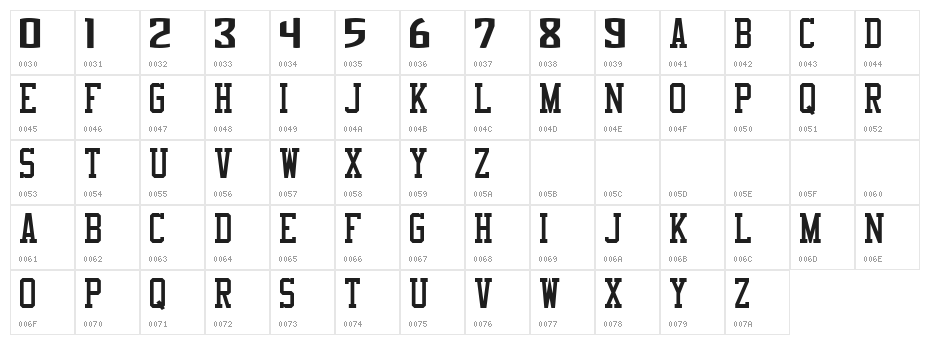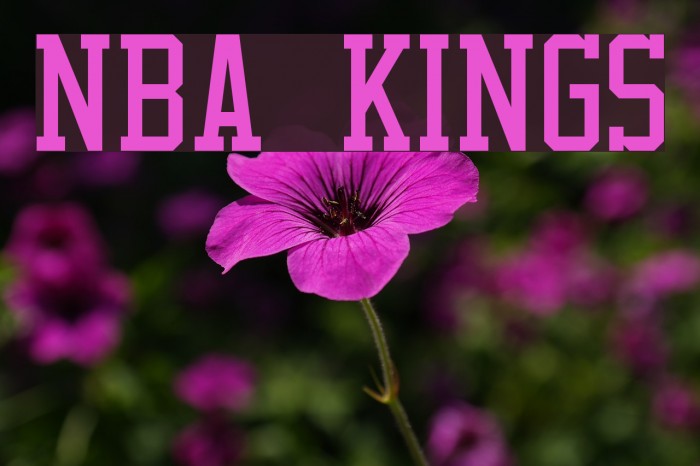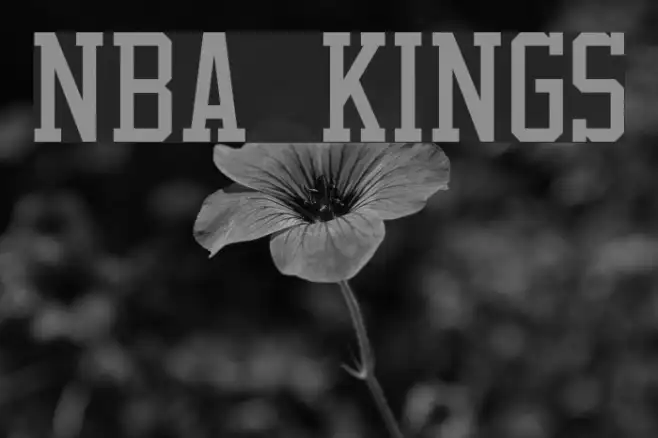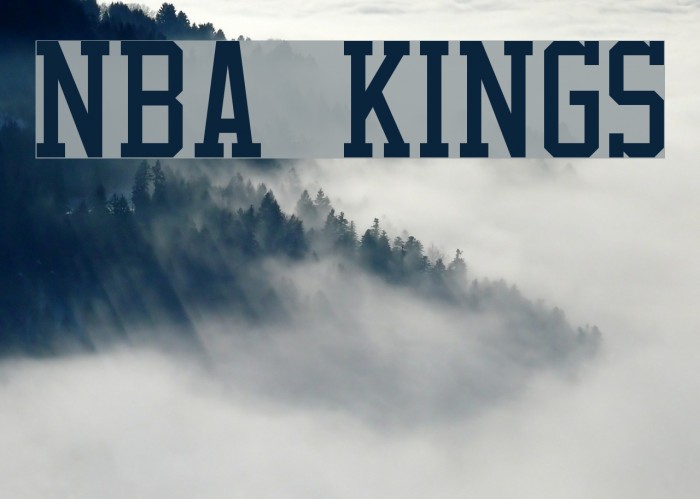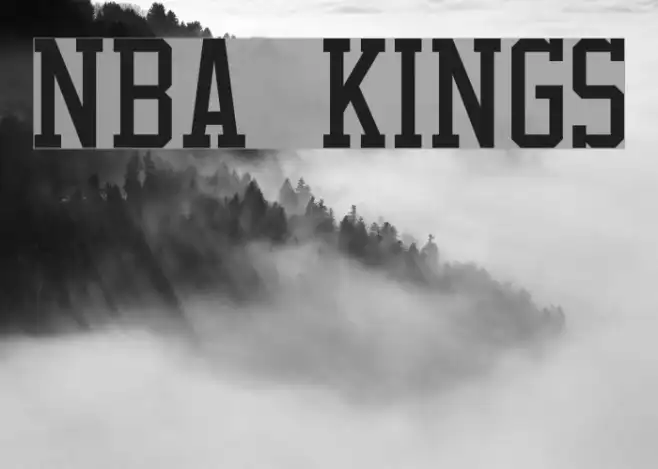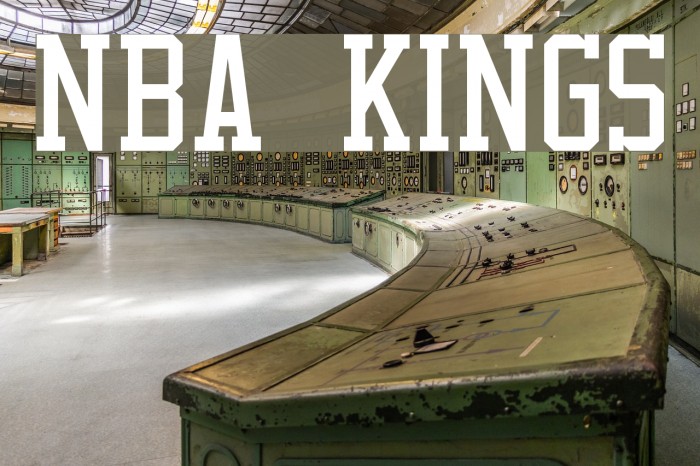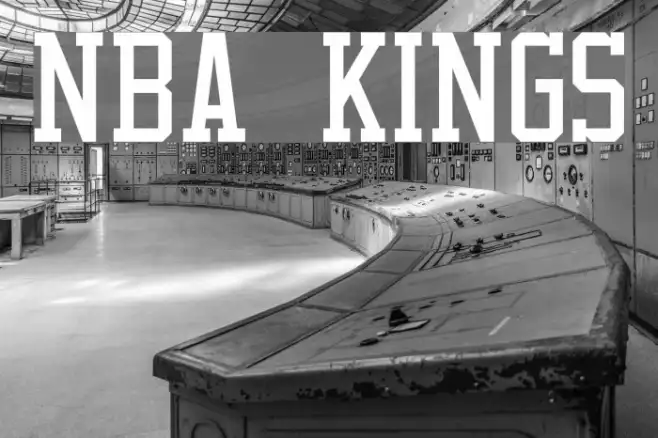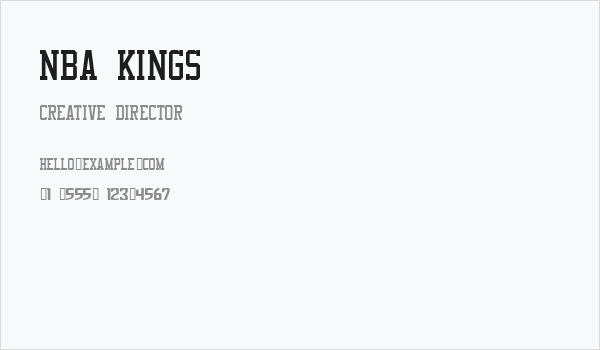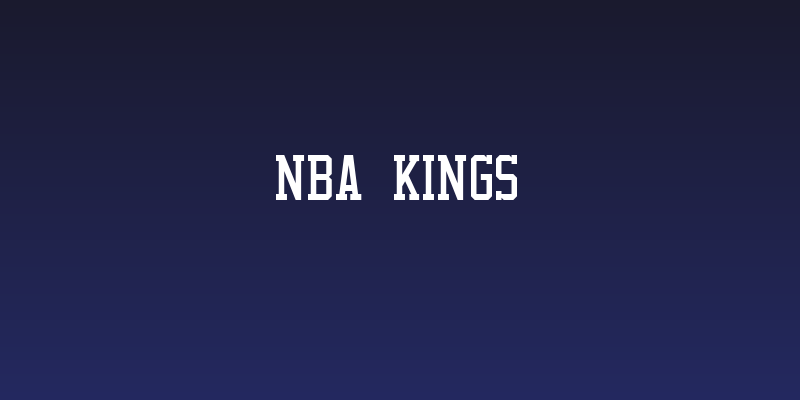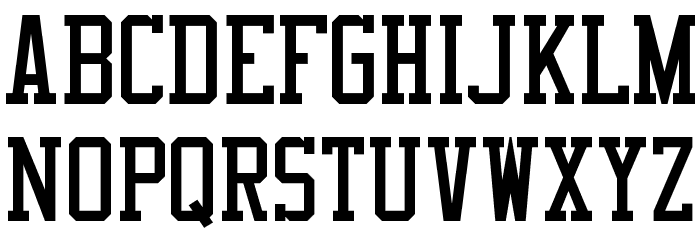
NBA Kings Font
NBA Kings Description
This font features a bold and impactful design, characterized by its strong, angular lines and geometric shapes. The uppercase letters are particularly striking, with a uniform height and width that create a sense of balance and stability. The numbers are equally bold, maintaining the same angular style that ensures consistency across the font. The overall appearance is modern and assertive, making it ideal for projects that require a strong visual presence. The font's design is reminiscent of sports team branding, with a focus on clarity and readability from a distance.
| Proposed Projects | Ideal for sports branding, team logos, posters, and headlines. |